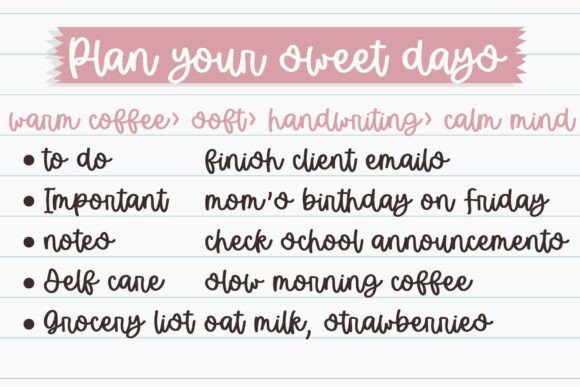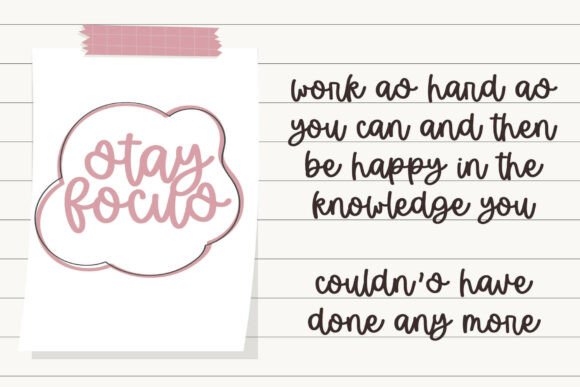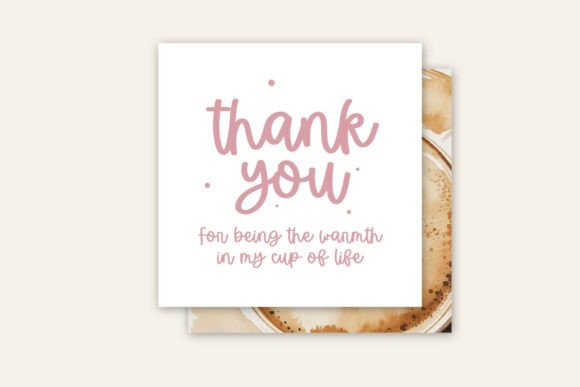
Introduction to Gentle Letters Font
Do you ever find yourself scribbling notes in the margins of your planner, the words spilling out in a messy yet beautiful script? That’s the magic of the Gentle Letters Font. It’s the feeling of putting pen to paper and letting your thoughts flow freely, without the constraints of perfection. For designers, Gentle Letters Font is a treasure trove of creative expression, offering a unique design resource that can elevate any project.
Whether you’re working on a self-care printable, a handmade candle label, or a heartfelt thank-you card, Gentle Letters Font is the perfect choice. Its soft, sincere, and cozy vibe is infectious, making every message feel warm and human. With its gentle curves and relaxed strokes, this font is a high-quality design element that can add a touch of personality to any project.
Key Features of Gentle Letters Font
- High-quality design resource with a unique, elegant aesthetic, perfect for creative projects
- Features a wide range of letters and symbols, making it an ideal choice for creative projects, such as branding, typography, and more
- Designed to be versatile and adaptable, suitable for a variety of design applications, including digital and print media
- Can be easily customized and modified to fit the specific needs of your design project
Honest Review: Gentle Letters Font
- What works well: ✨ The font’s elegant and refined design makes it ideal for projects that require a touch of sophistication, such as wedding invitations or luxury branding.
- What works well: ✨ The font’s versatility in terms of font sizes and styles makes it easy to adapt to different design scenarios.
However, I do have a few limitations to note: ⚠️ The font’s bold weight can sometimes look a bit too bold, making it difficult to pair with certain design elements. Additionally, the font’s italic style can be a bit too slanted, which may not be suitable for all projects.
How to Use Gentle Letters Font
Tips for Getting the Most Out of Gentle Letters Font
Use the Gentle Letters Font in combination with other design elements, such as illustrations or graphics, to create a visually appealing design. Experiment with different font sizes and colors to achieve the desired effect.
The Gentle Letters Font is suitable for various creative projects, including wedding invitations, baby shower invitations, and greeting cards. Its elegant and sophisticated design makes it perfect for formal events and occasions.